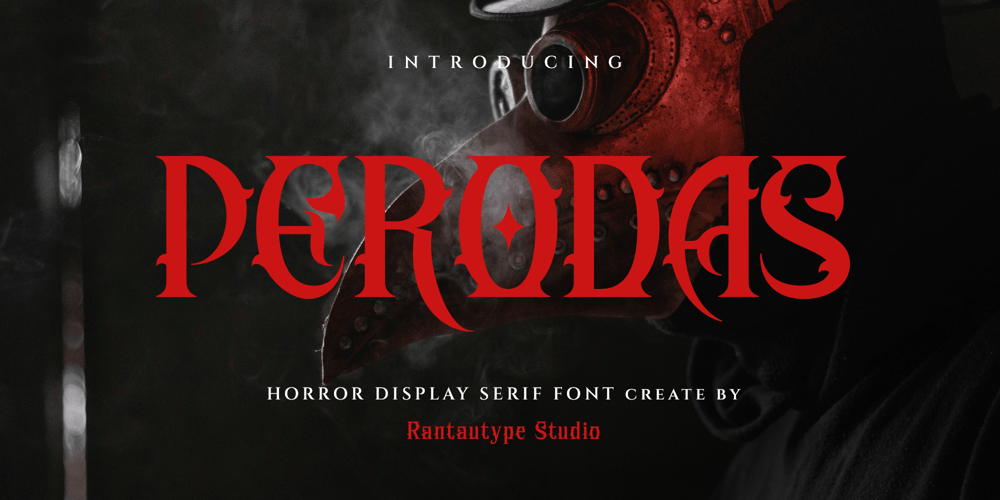
Perodas Font Family was designed by Yudi Pratama Chandra and published by RantauType. Perodas contains 2 styles and family package options. Perodas is horror decorative display font inspire from dark trailler visual design. Perodas bring you into new side about the darkness of the scary, mystery, horror and blood.Perodas is a perfectly choice for any creative endeavor such as logos, advertisements, stationery, branding project, display and magazine, invitation, headline, corporate brand, product design, label, business project and many other project with horror or dark touch.What you have: Standart Glyphs Numberial and Functional Alternate and Ligature Works on PC & Mac Simple installations Accessible in Adobe Illustrator, Adobe Photoshop, Adobe InDesign, even work on Microsoft Word. Fonts include Multilingual Character for: Afrikaans, Albanian, Asu, Basque, Bemba, Bena, Breton, Chiga, Cornish, Dutch, English, Estonian, Filipino, Finnish, Friulian, Galician, Gusii, Indonesian, Irish, Italian, Kabuverdianu, Kalenjin, Kinyarwanda, Luo, Luxembourgish, Luyia, Machame, Makhuwa-Meetto, Makonde, Malagasy, Manx, Morisyen, North, Ndebele, Nyankole, Oromo, Portuguese, Quechua, Romansh, Rombo, Rundi, Rwa, Samburu, Sango, Sangu, Scottish, Gaelic, Sena, Shambala, Shona, Soga, Somali, Spanish, Swahili, Swedish, Swiss, German.Thank you for your purchase!Hope you enjoy with our font!